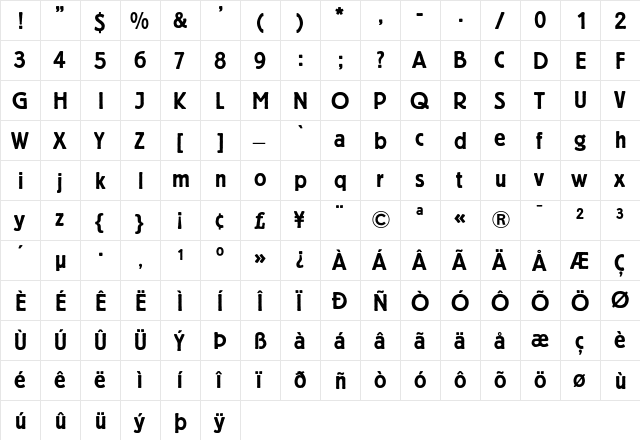
Berliner Grotesk Medium Font Preview
Berliner Grotesk Medium
Design Context for Berliner Grotesk Typeface
Berliner Grotesk has the quiet confidence of well-executed sans-serif typography: versatile, unobtrusive, and dependable at any size.
Font Pairing: Works well alongside a characterful serif or display font that can carry the expressive load while Berliner Grotesk handles the functional copy.
Pro Tip: Pair Berliner Grotesk with a display or serif font for headlines — its neutral character makes it an excellent supporting player in complex typographic systems.